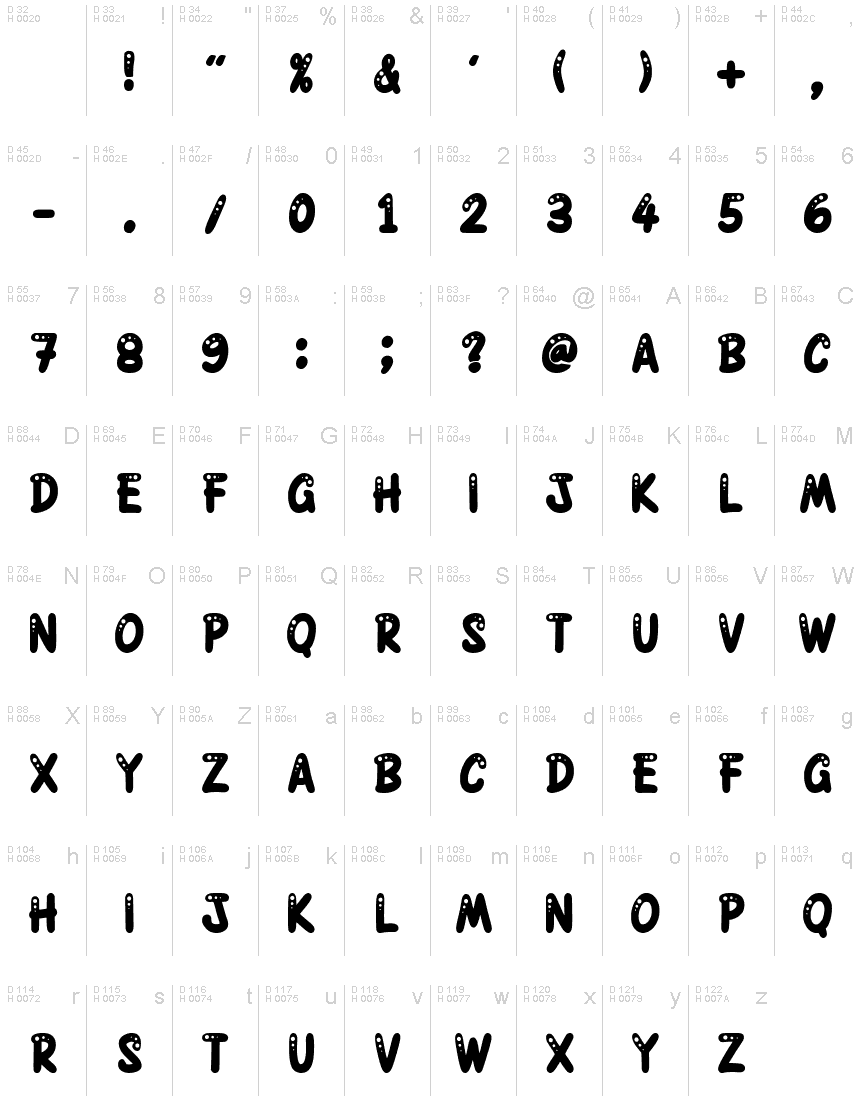
Romantic Love Regular
Romantic Love is a bold and decorative display font designed by Novita Maria. Perfect for any romantic project, this font adds a playful yet elegant touch to any design work. Use it to add a dash of love to Valentine's Day cards, wedding invitations or even branding projects.